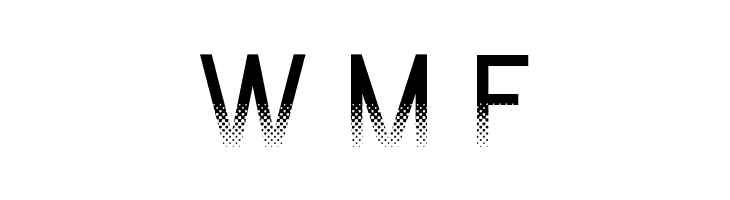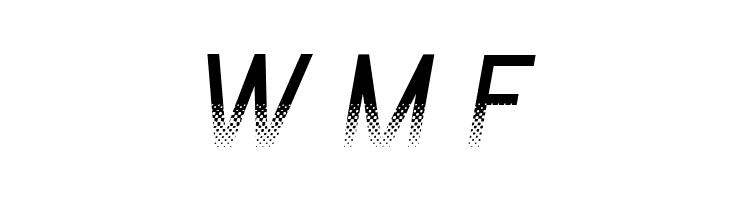
A modern sans-serif font with geometric influences and consistent stroke width.
A bold, modern sans-serif font with rounded, slightly condensed characters.
A modern, italic sans-serif font with a sleek and dynamic style.
A modern, geometric sans-serif font with a clean and balanced design.
A bold, rounded sans-serif font with smooth curves and uniform strokes.
A modern, italic sans-serif font with a sleek and dynamic style.
A modern font with a gradient dotted effect, perfect for creative designs.